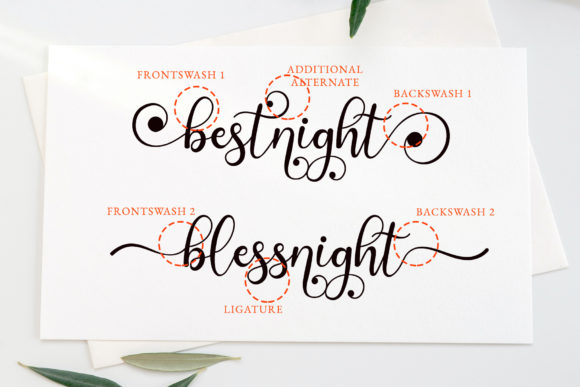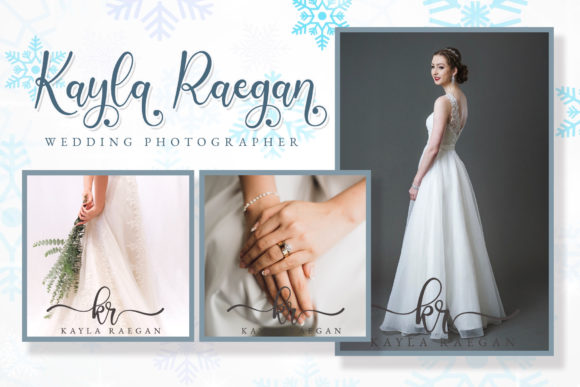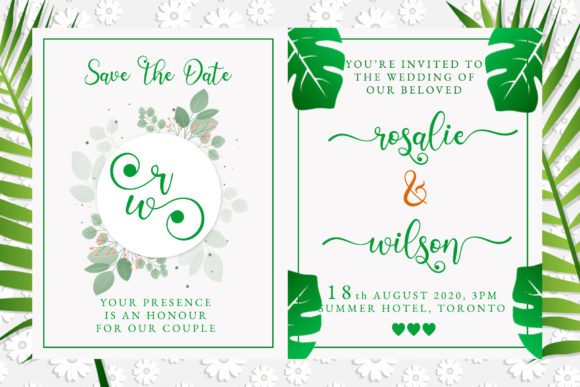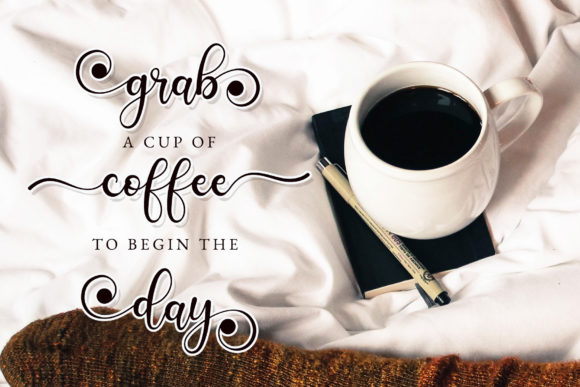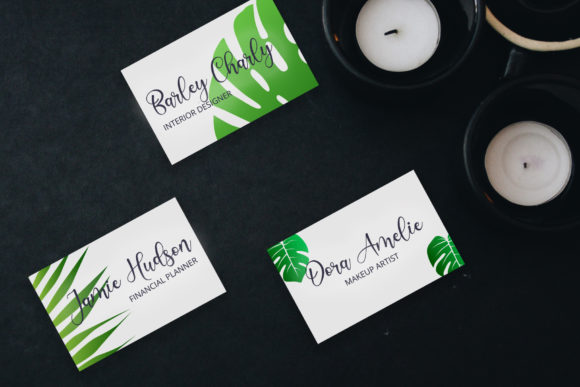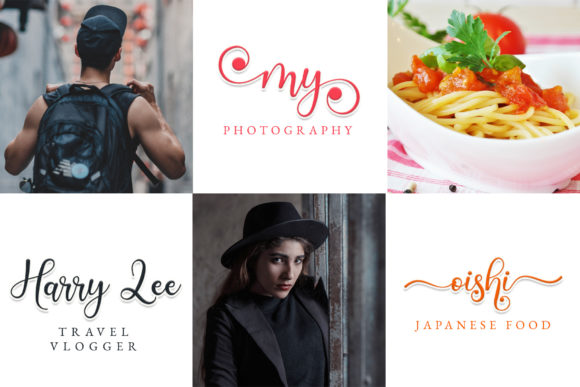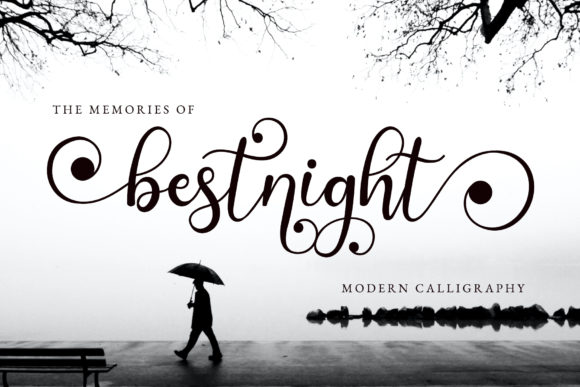
Discover the Elegance of Bestnight Font: Elevate Your Designs with Sophistication
In the realm of typography, few fonts manage to capture the essence of elegance and sophistication as effortlessly as the Bestnight Font. This exquisite, handwritten font is a masterpiece of modern calligraphy, blending traditional techniques with a contemporary twist. Whether you’re a designer looking to add a touch of class to your projects or a crafter seeking the perfect typography to bring your creations to life, Bestnight Font is sure to enchant you with its beauty and versatility.
The Unique Charm of Bestnight Font
Bestnight Font stands out in the world of typography due to its elegant and flowing script. Each letter is crafted with precision and care, resulting in a font that exudes luxury and refinement. The varying baseline and smooth lines contribute to its dynamic and fluid appearance, making it perfect for a wide range of applications, from wedding invitations and luxury branding to packaging and digital media.
One of the key features that make Bestnight Font incredibly user-friendly is its PUA (Private Use Area) encoding. This means that accessing the font’s extensive range of glyphs and swashes is straightforward, allowing designers to experiment with different styles and combinations with ease. The PUA encoding ensures that you can unlock the full creative potential of Bestnight Font, making it easier to add unique touches to your designs.
Features of Bestnight Font
- Elegant and Flowing Script: Bestnight Font boasts a beautiful, handwritten script that adds a touch of sophistication to any project.
- Varying Baseline: The font’s dynamic baseline adds to its elegant and fluid appearance.
- Smooth Lines and Glyphs: Crafted with smooth lines and gorgeous glyphs, Bestnight Font is a feast for the eyes.
- Stunning Alternates: With a range of alternates, you can customize your text to fit your project’s unique style.
- PUA Encoded: Easy access to all glyphs and swashes for creative freedom.
- Classy Calligraphic Influences: Bestnight Font maintains a classy, calligraphic feel while feeling contemporary and fresh.
Why Choose Bestnight Font?
For designers and crafters, the quest for the perfect font is ongoing. Bestnight Font offers a unique combination of elegance, versatility, and ease of use that makes it an excellent choice for a variety of projects. Here are a few reasons why Bestnight Font should be at the top of your list:
- Versatility: Suitable for a wide range of projects, from digital media to print materials.
- Ease of Use: PUA encoding makes it easy to access and use the font’s features.
- Unique Style: Offers a distinctive look that can help your projects stand out.
- High-Quality Design: Crafted with attention to detail, ensuring a high-quality appearance in any application.
Using Bestnight Font in Your Projects
Incorporating Bestnight Font into your designs is straightforward. Here are a few tips to get you started:
- Experiment with Swashes: Use the font’s swashes to add decorative touches to your text.
- Mix and Match: Don’t be afraid to combine Bestnight Font with other fonts for a unique look.
- Adjust and Customize: Take advantage of the font’s alternates and glyphs to customize your text.
Bestnight Font is a stunning example of modern calligraphy, offering a perfect blend of elegance and versatility. Its unique features, including PUA encoding for easy access to glyphs and swashes, make it an invaluable tool for designers and crafters. Whether you’re looking to add a touch of sophistication to your projects or seeking a font that can help you stand out, Bestnight Font is an excellent choice. With its classy calligraphic influences and contemporary feel, Bestnight Font is sure to elevate your designs to new heights.